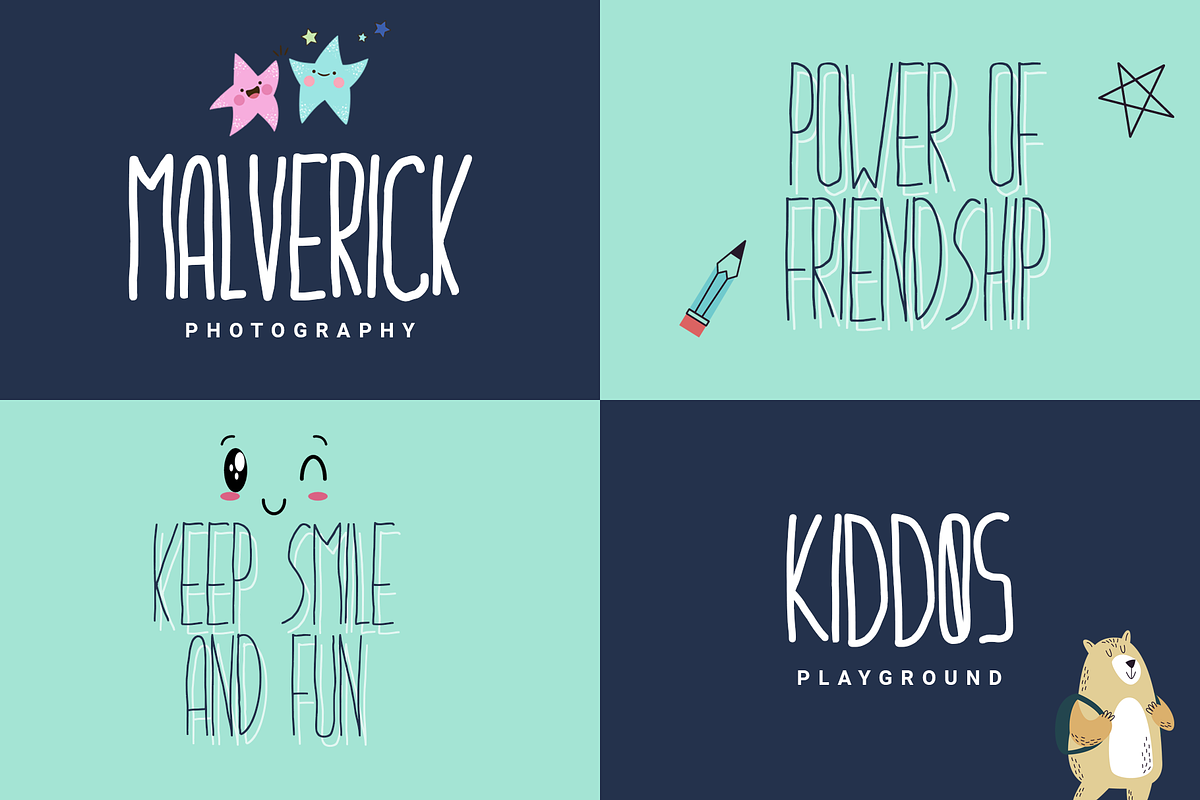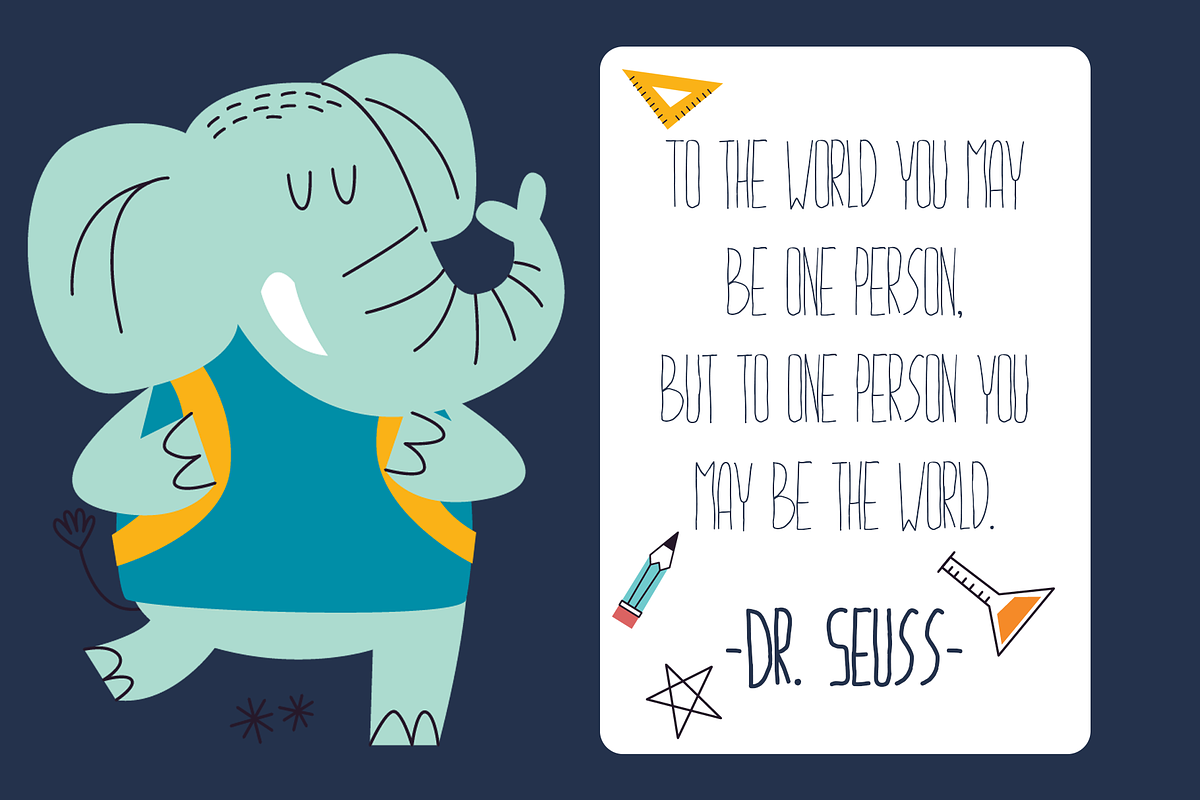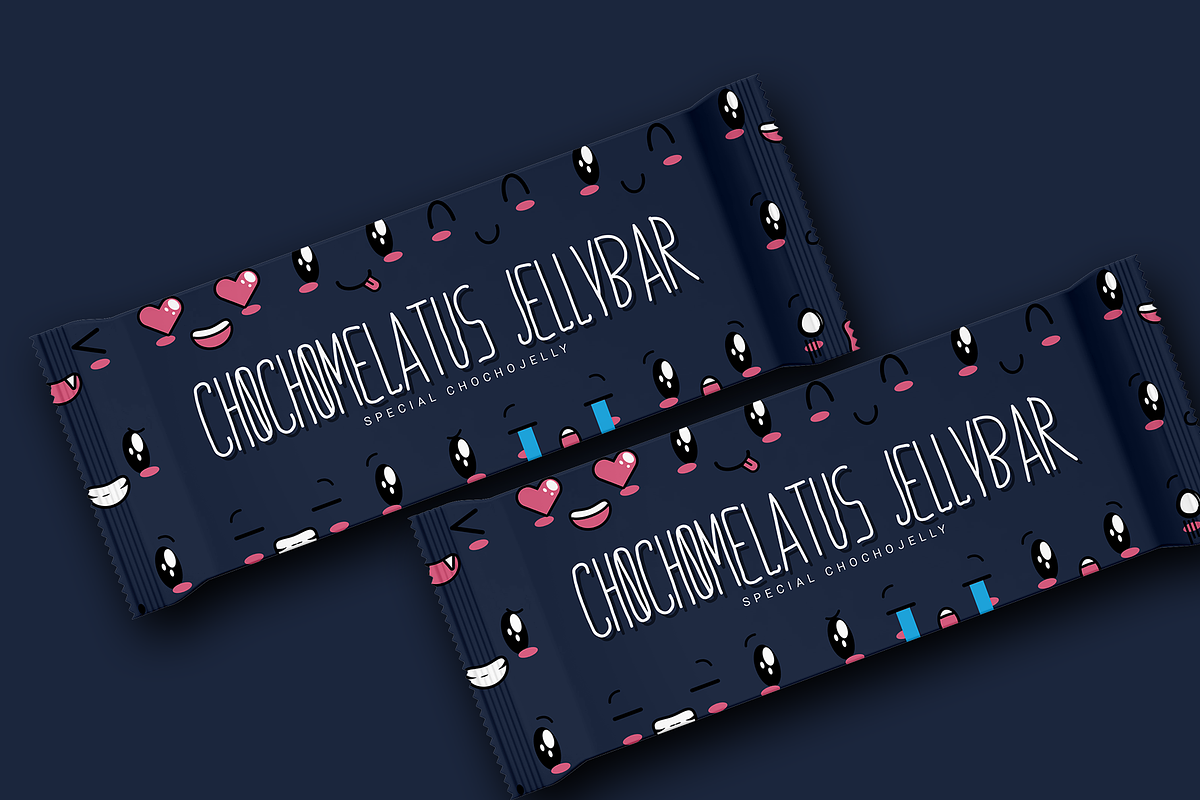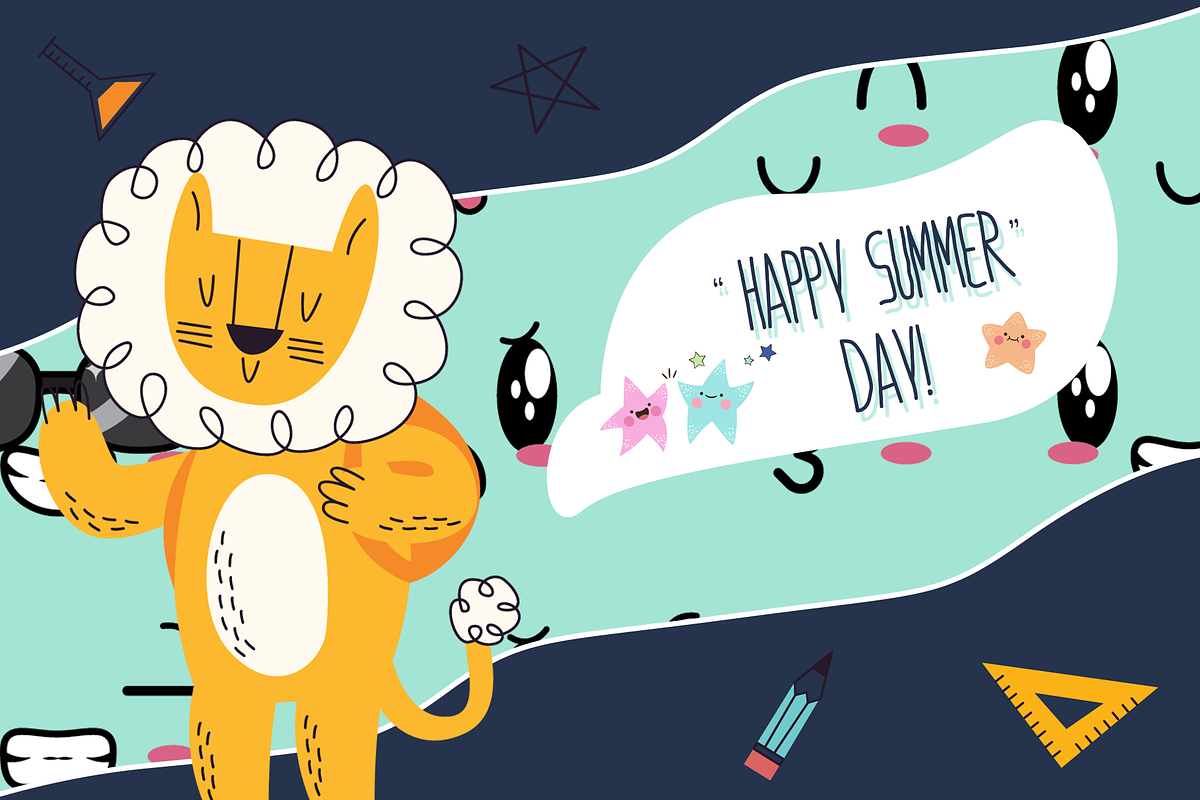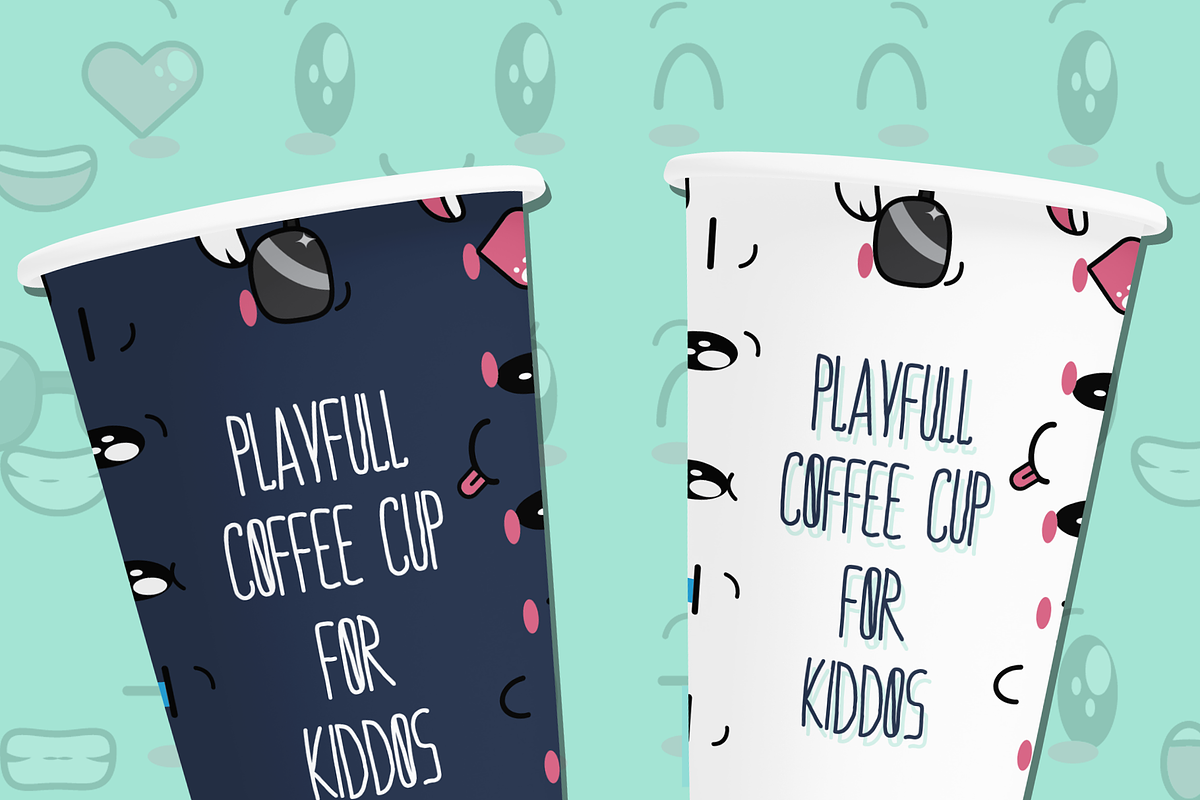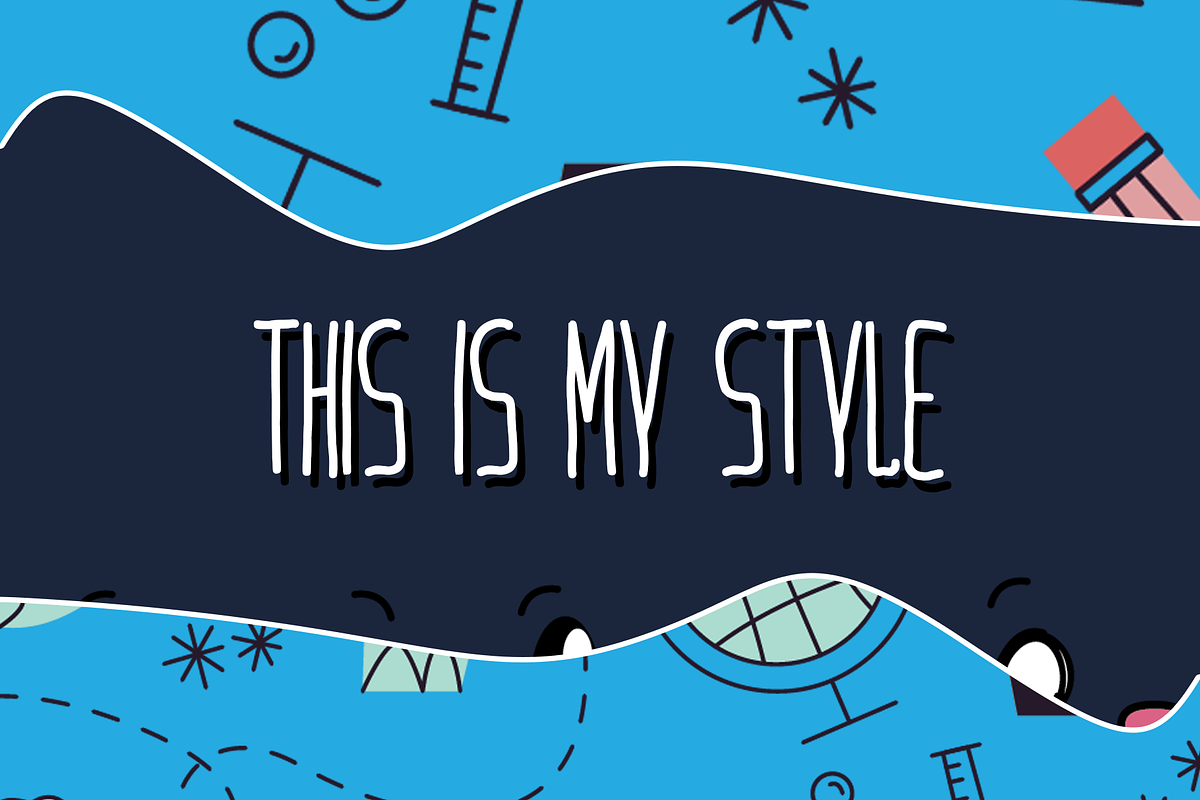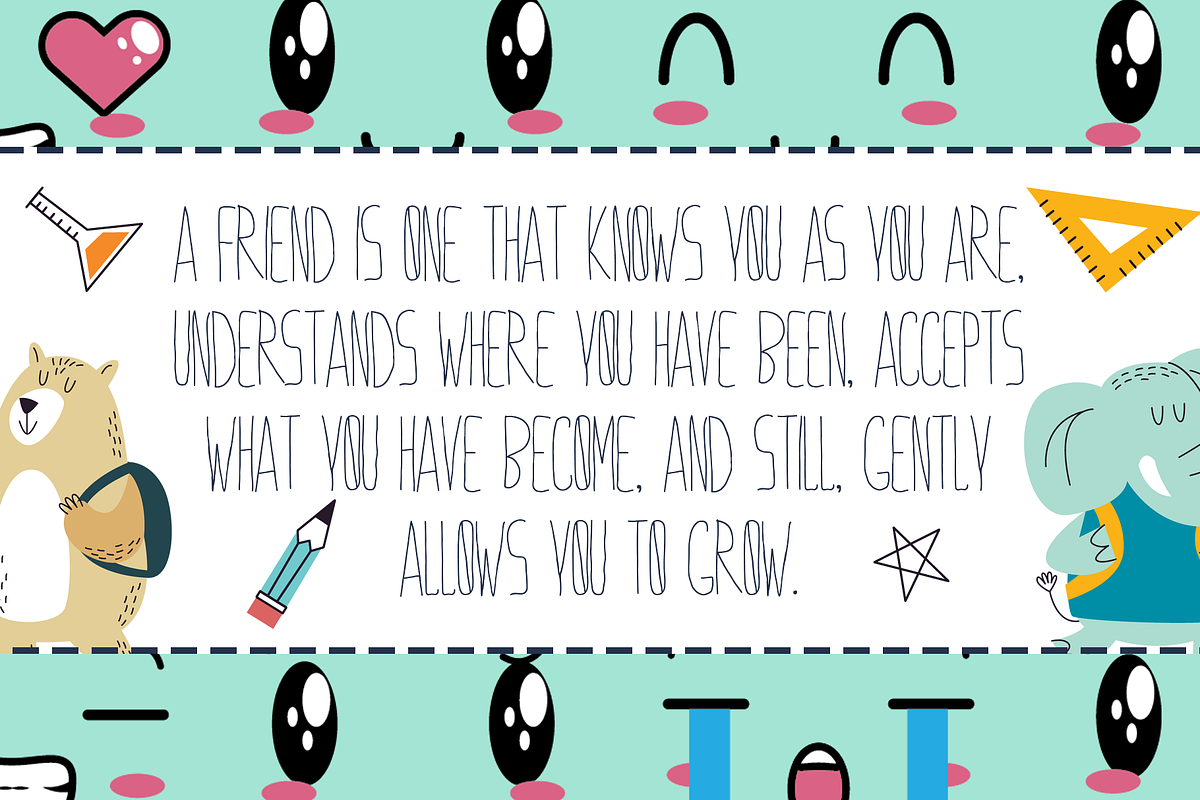
GERROMONO Playful Font
GERROMONO is uneven, unexpected, playful font which puts a smile on your projects and will inspire you to create something fun and memorable. It is perfect for headings, flyer, greeting cards, product.
GERROMONO is a display font with Uppercase glyps. This font can be used for comic design, children's books, preschool name tag and others.